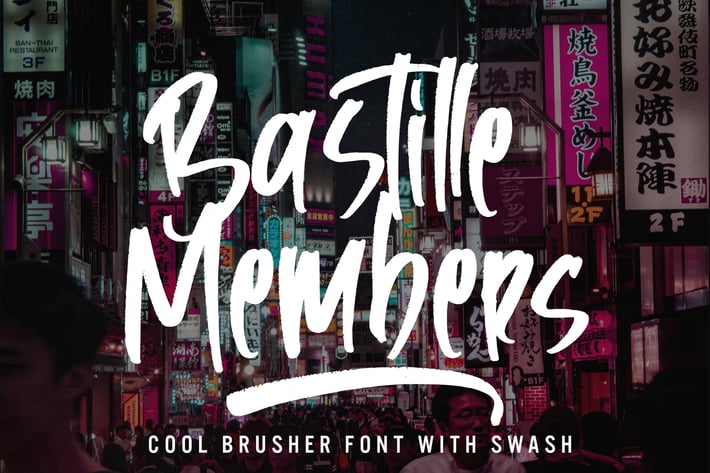
Bastille Members - Cool Brusher Font With Swash
Bastille Members - Cool Brusher Font With Swash that has a distinctive character that is very thick and elegant to use
Bastille Members is a relaxed and flowing Handwritten Font. Incredibly versatile, this font fits a wide pool of designs, elevating them to the highest levels. Add this font to your favorite creative ideas and notice how it makes them come alive!